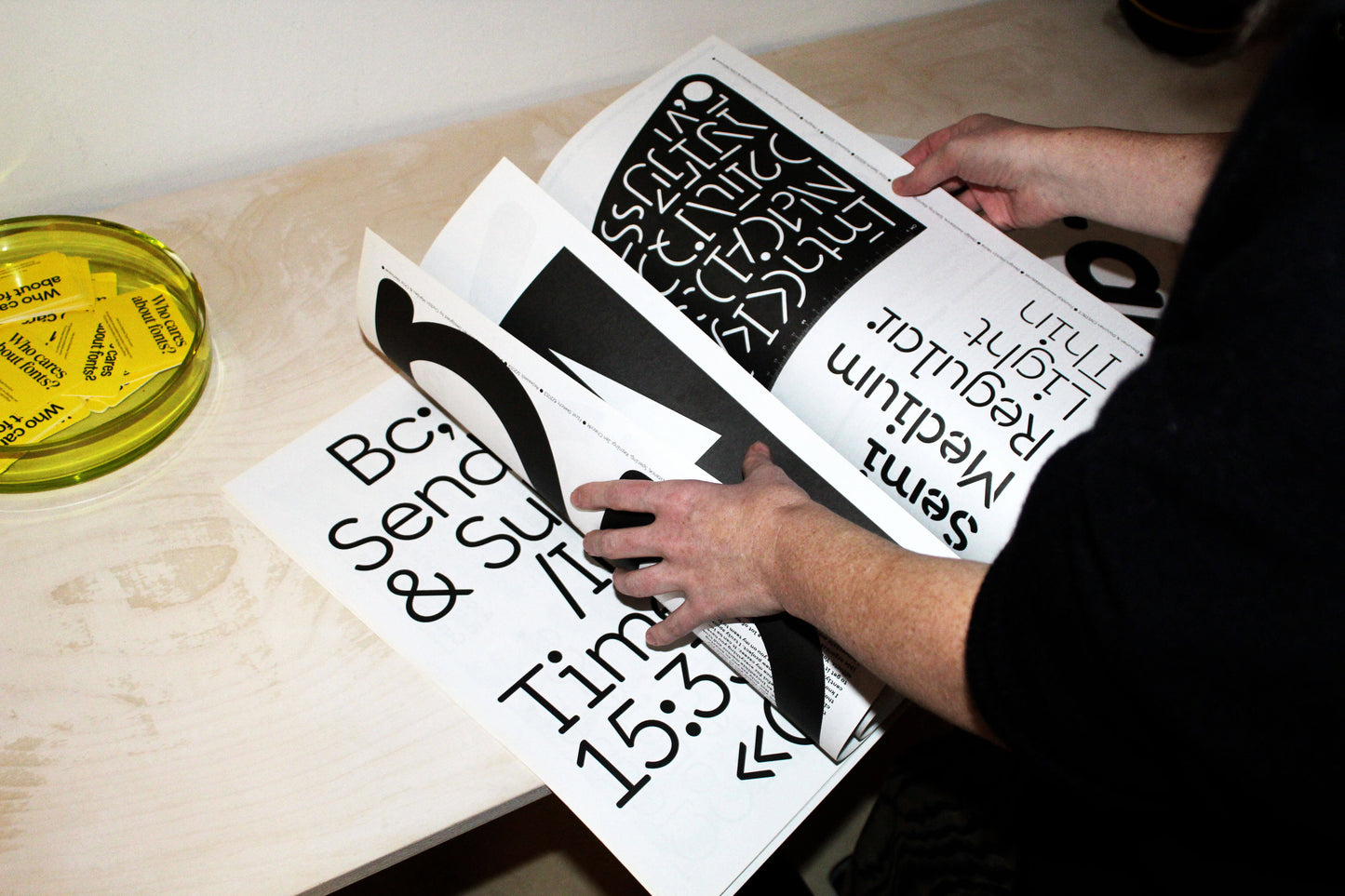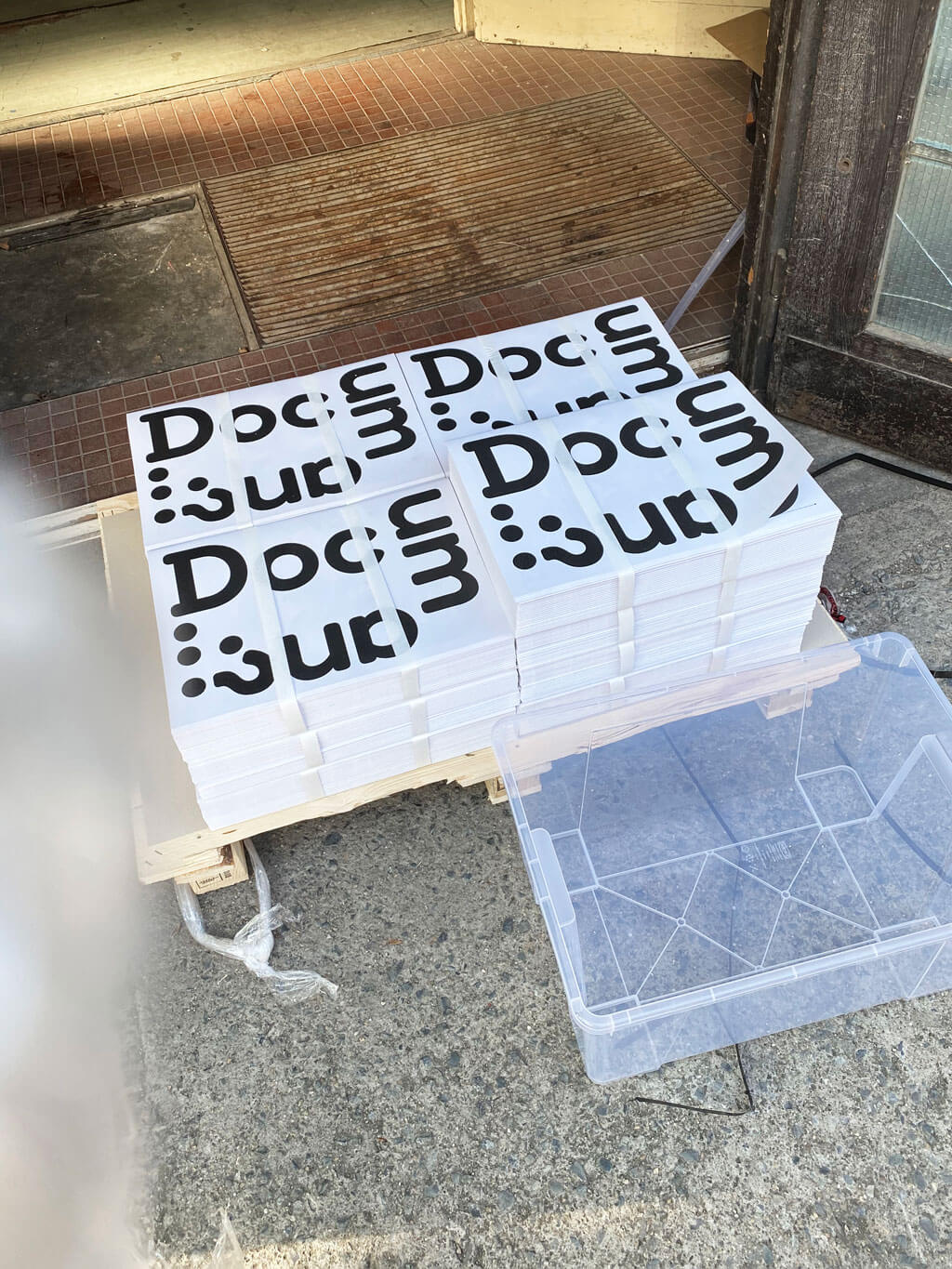
Documan NEWSPAPER
Who is DocuMan? Is it a person or a job where you have to sift through piles of obscure and unnecessary documents and papers on a daily basis?
The specimen of Documan Family is an typographical analogy to bureaucracy, job titles, office and corporate slang. It is conceived as a now unfashionable medium, the newspaper. When was the last time you read a newspaper?
Font in use: Documan